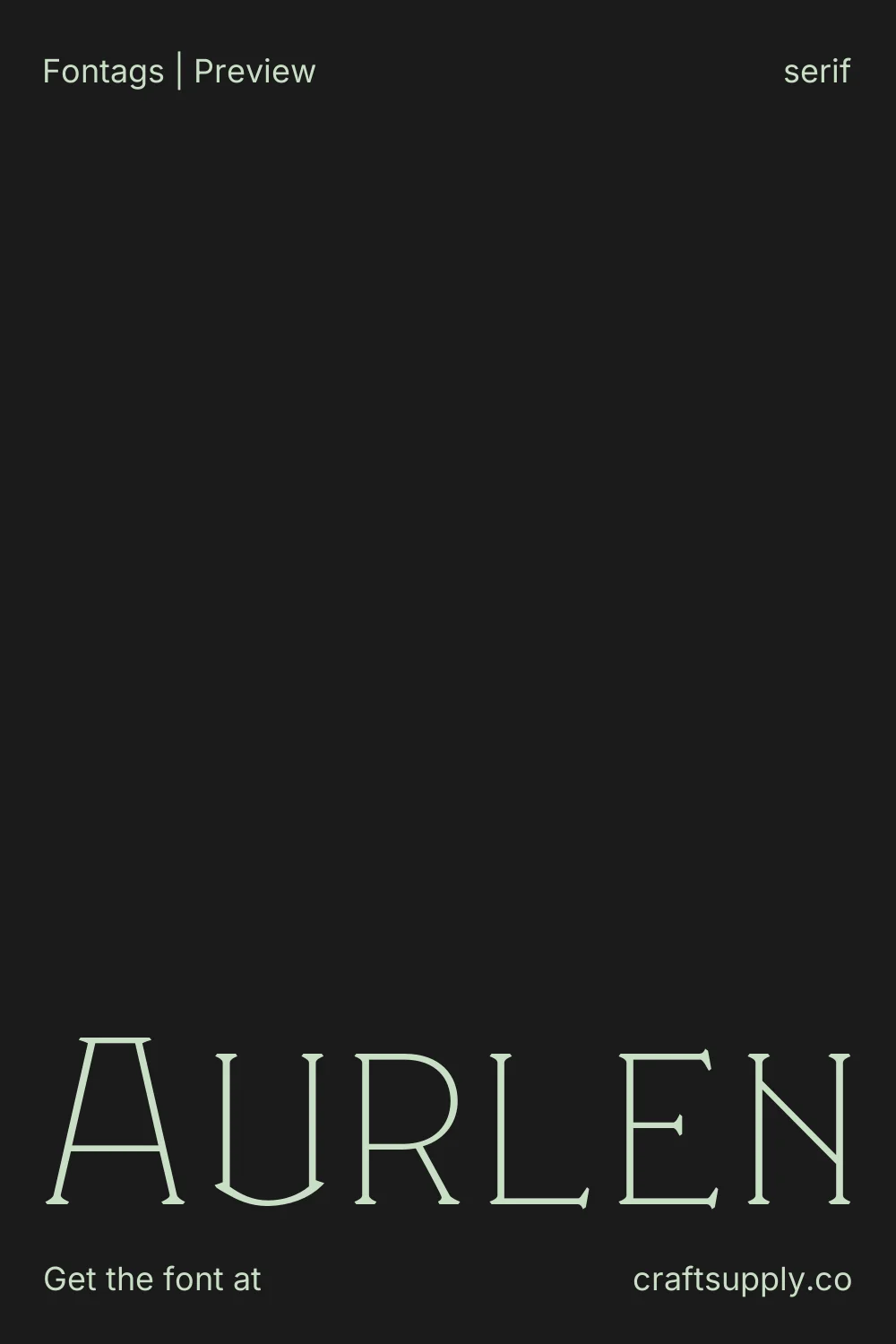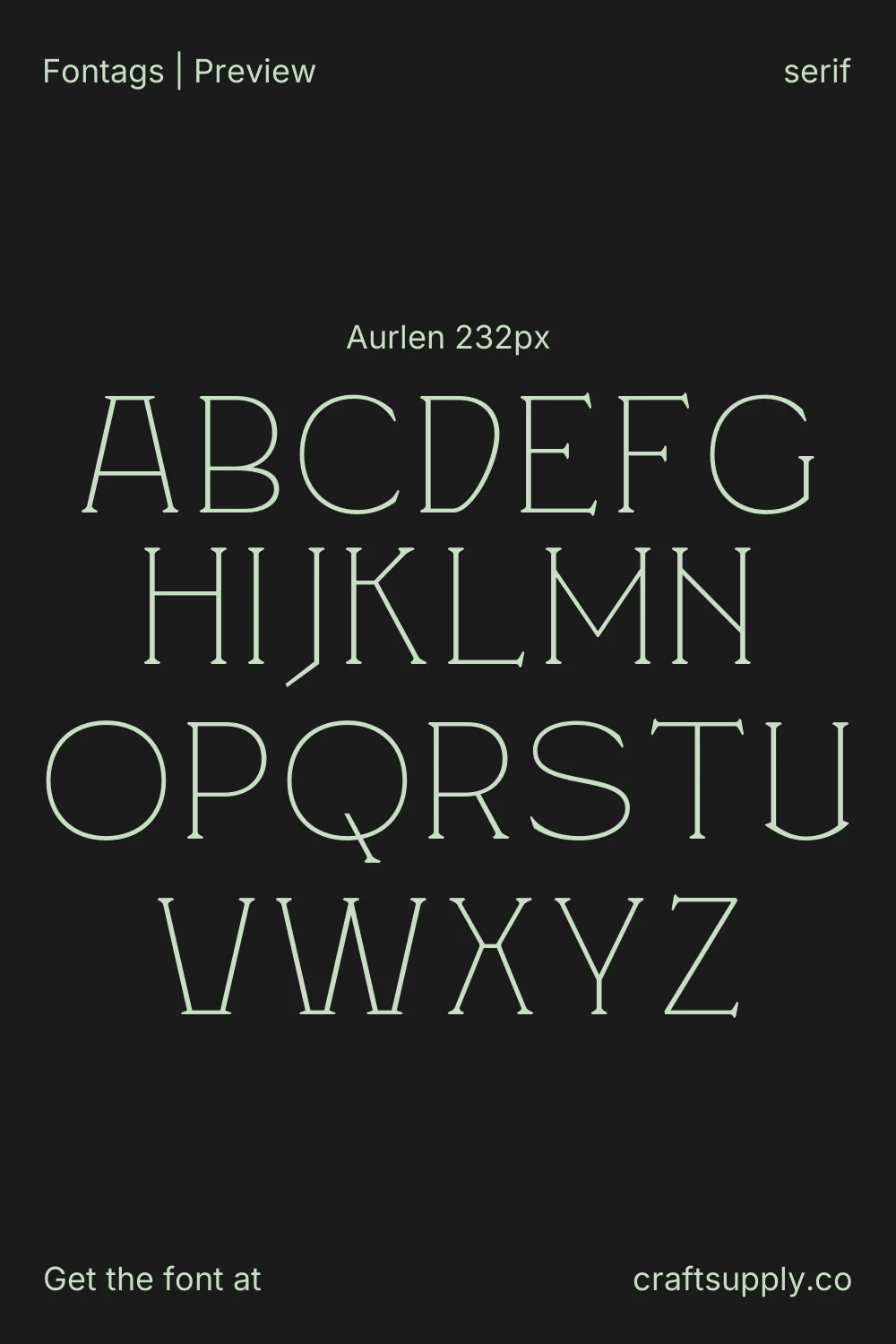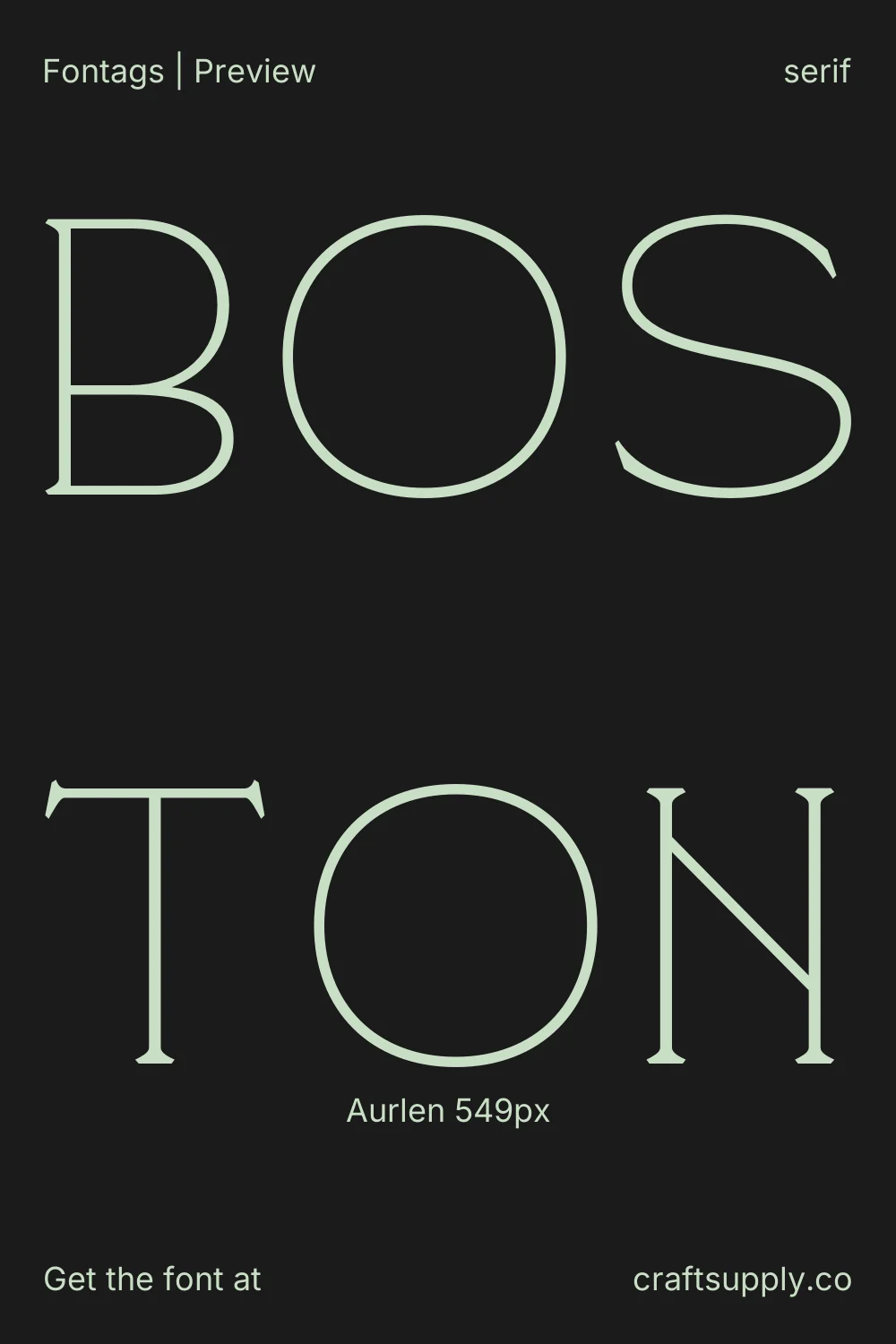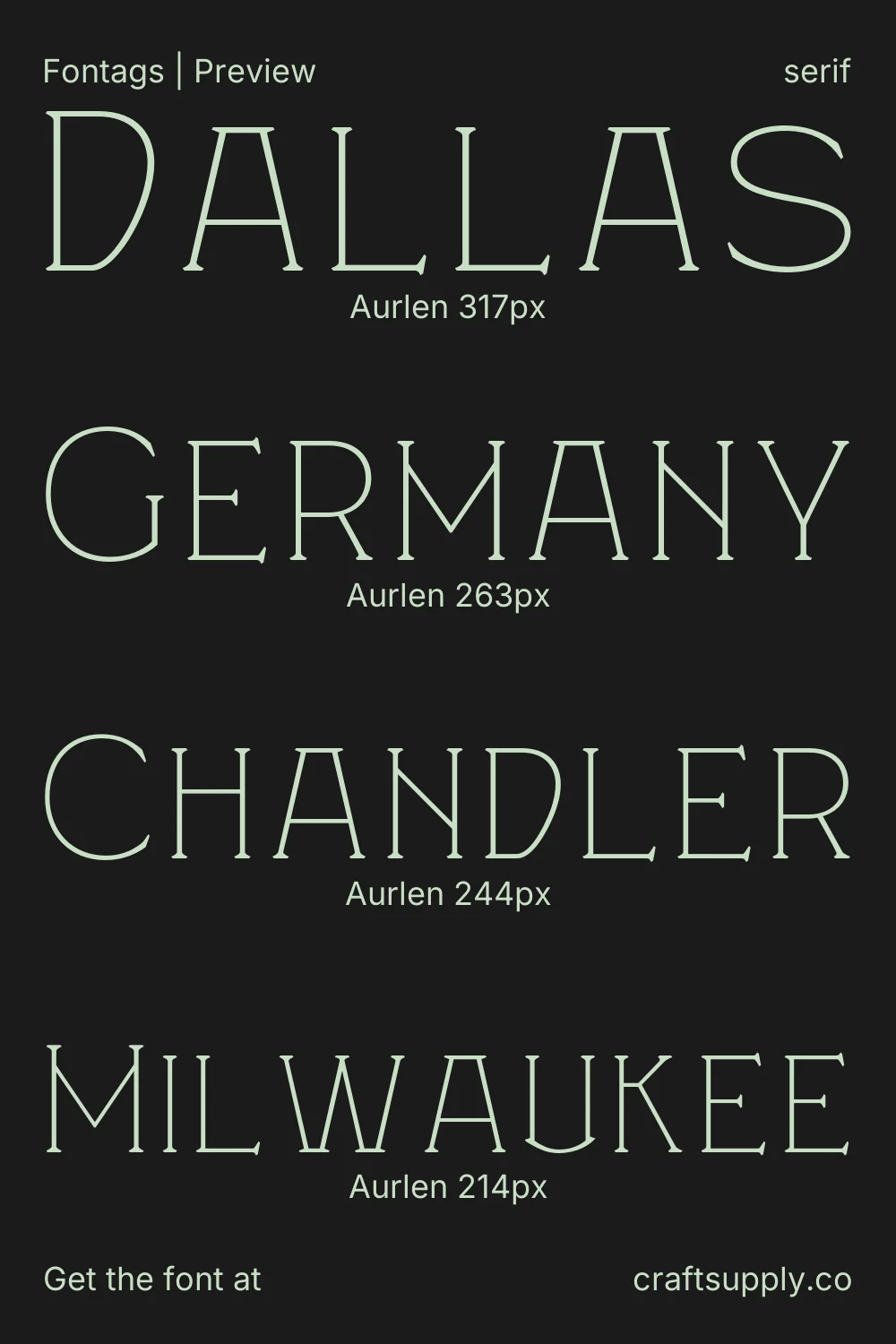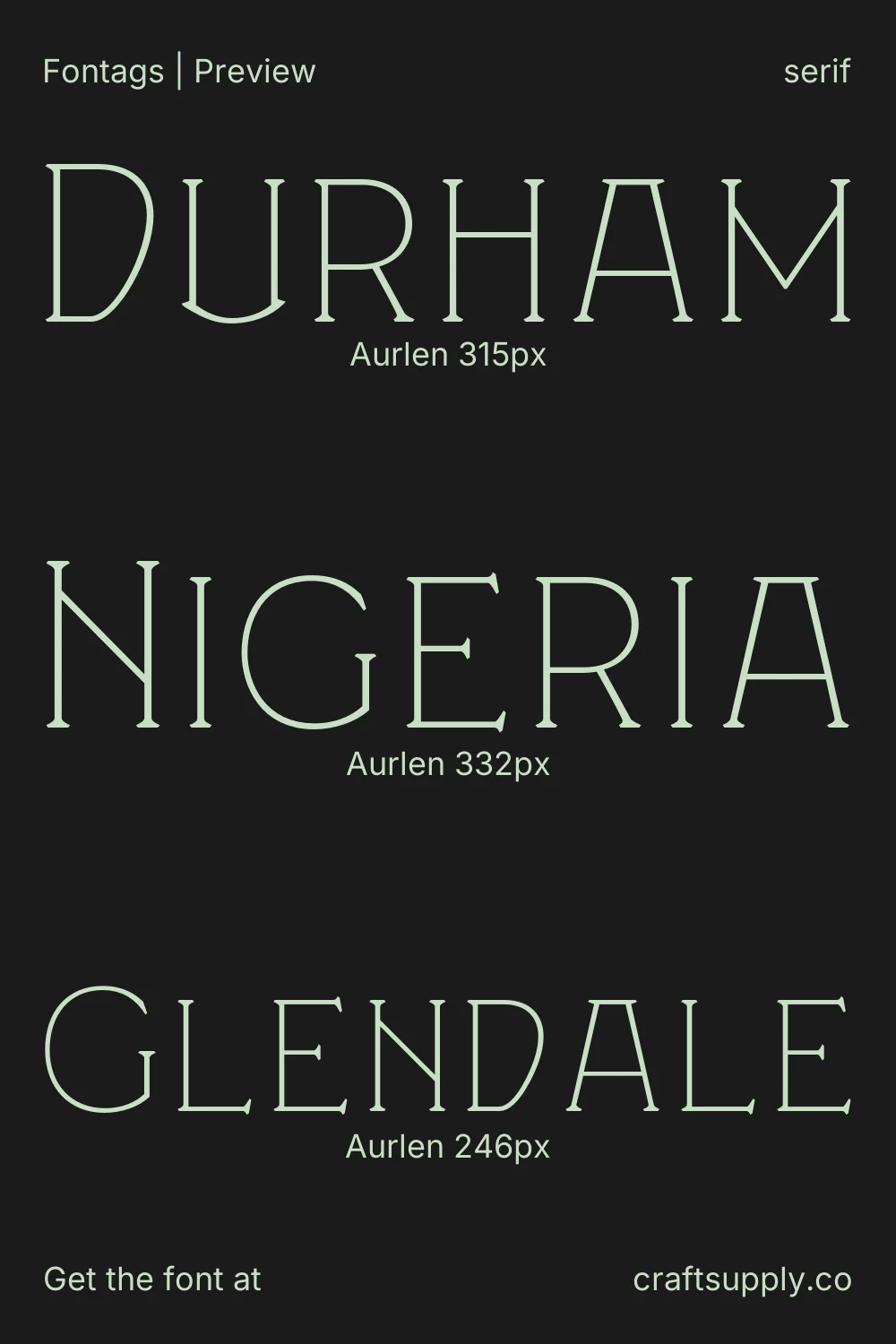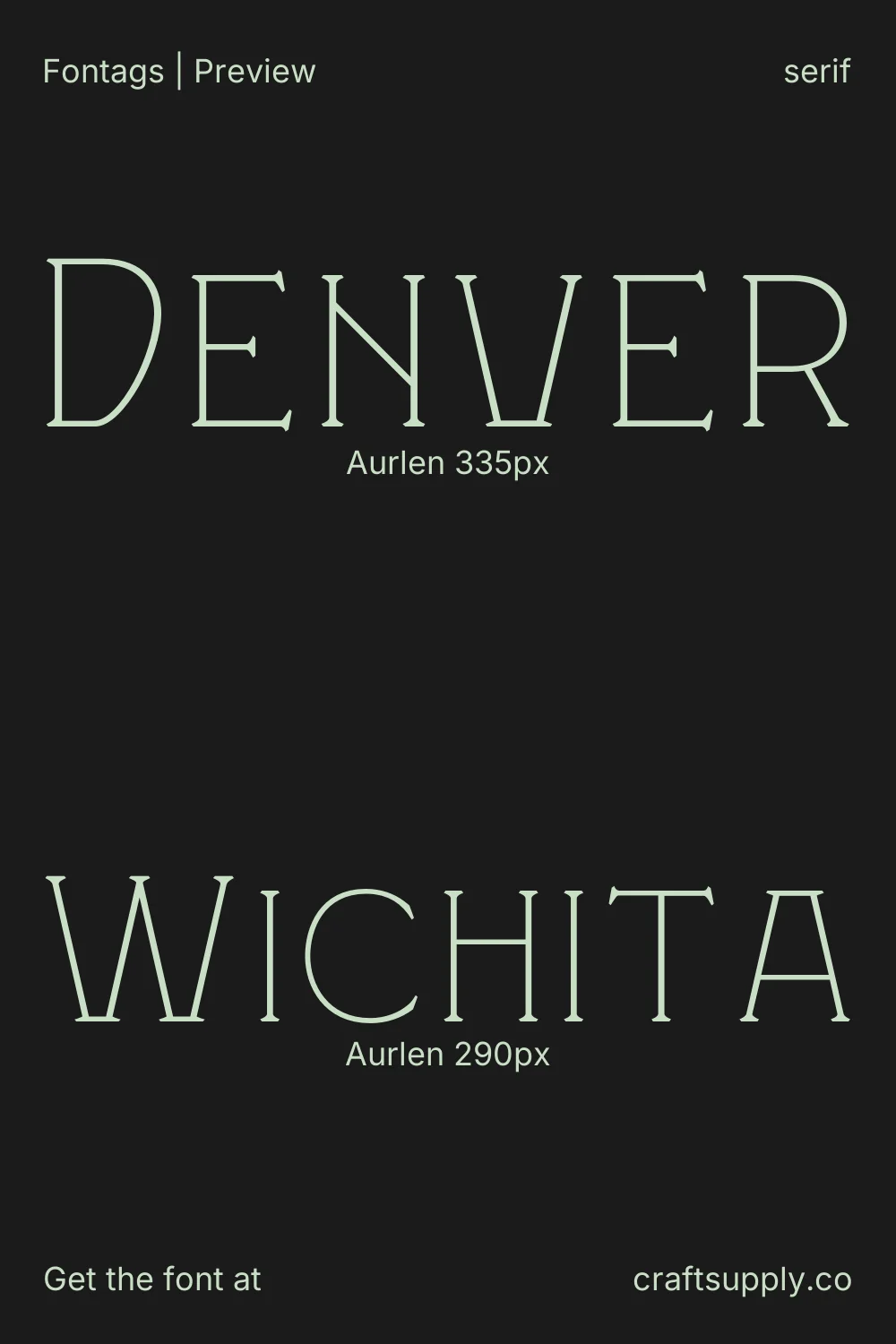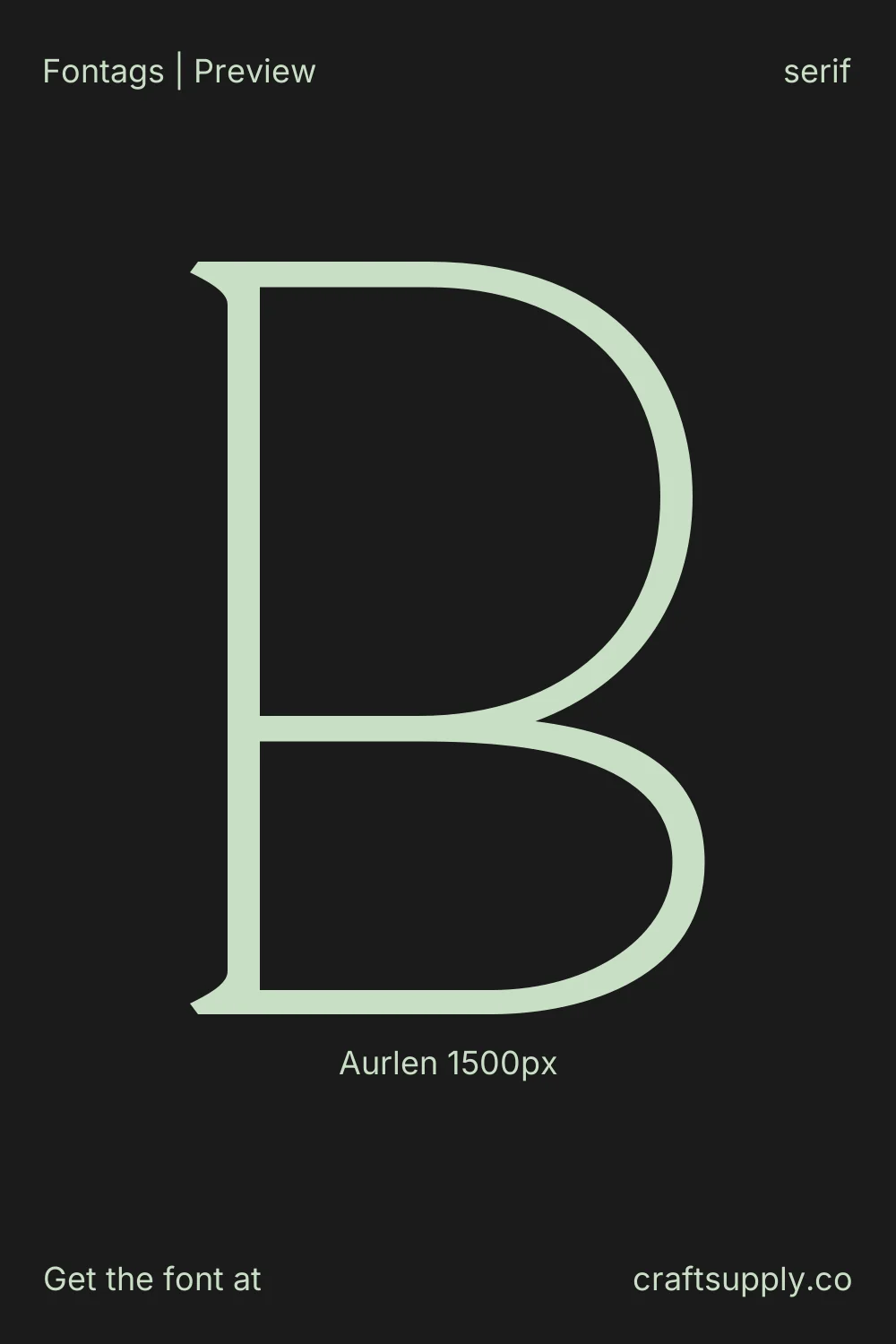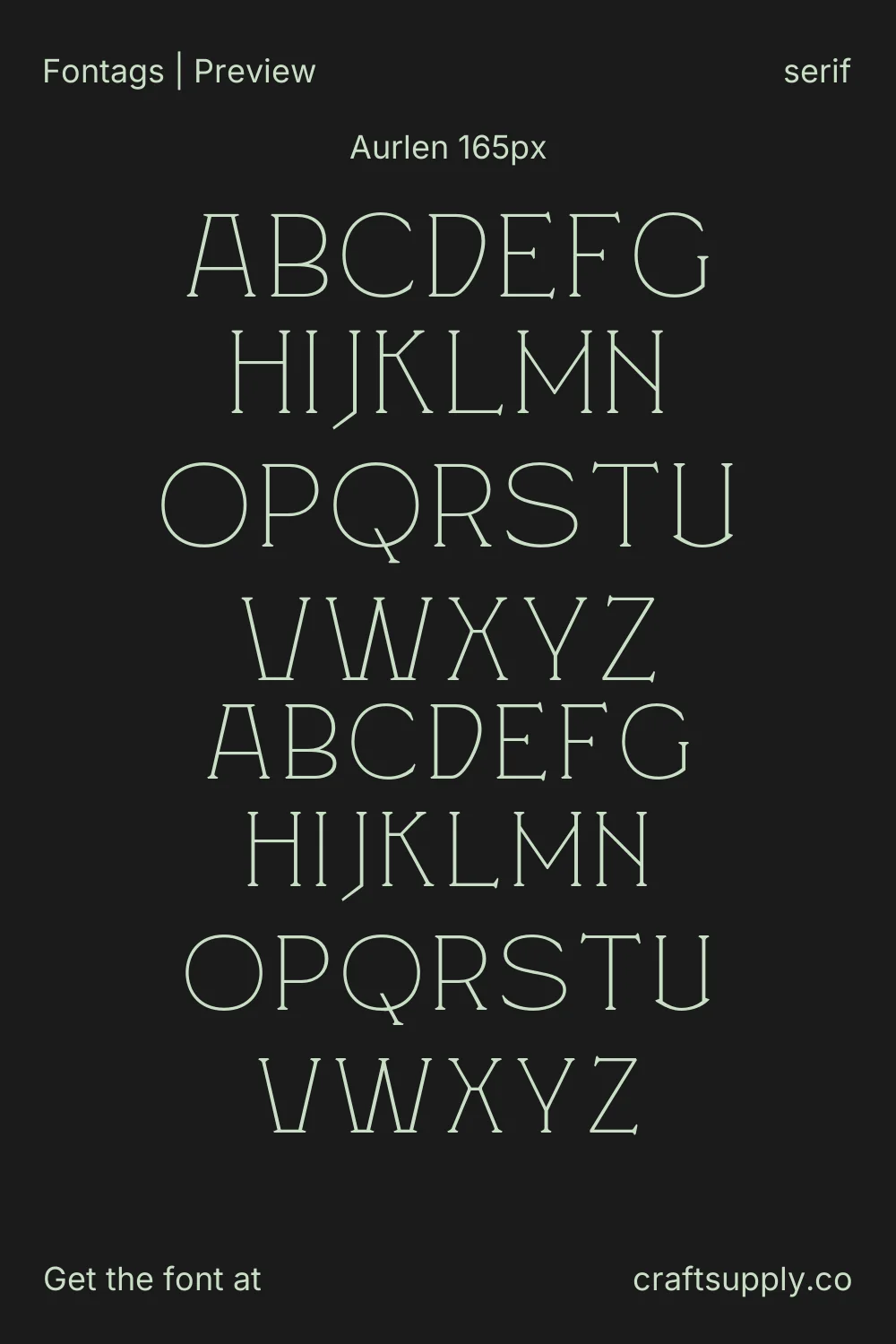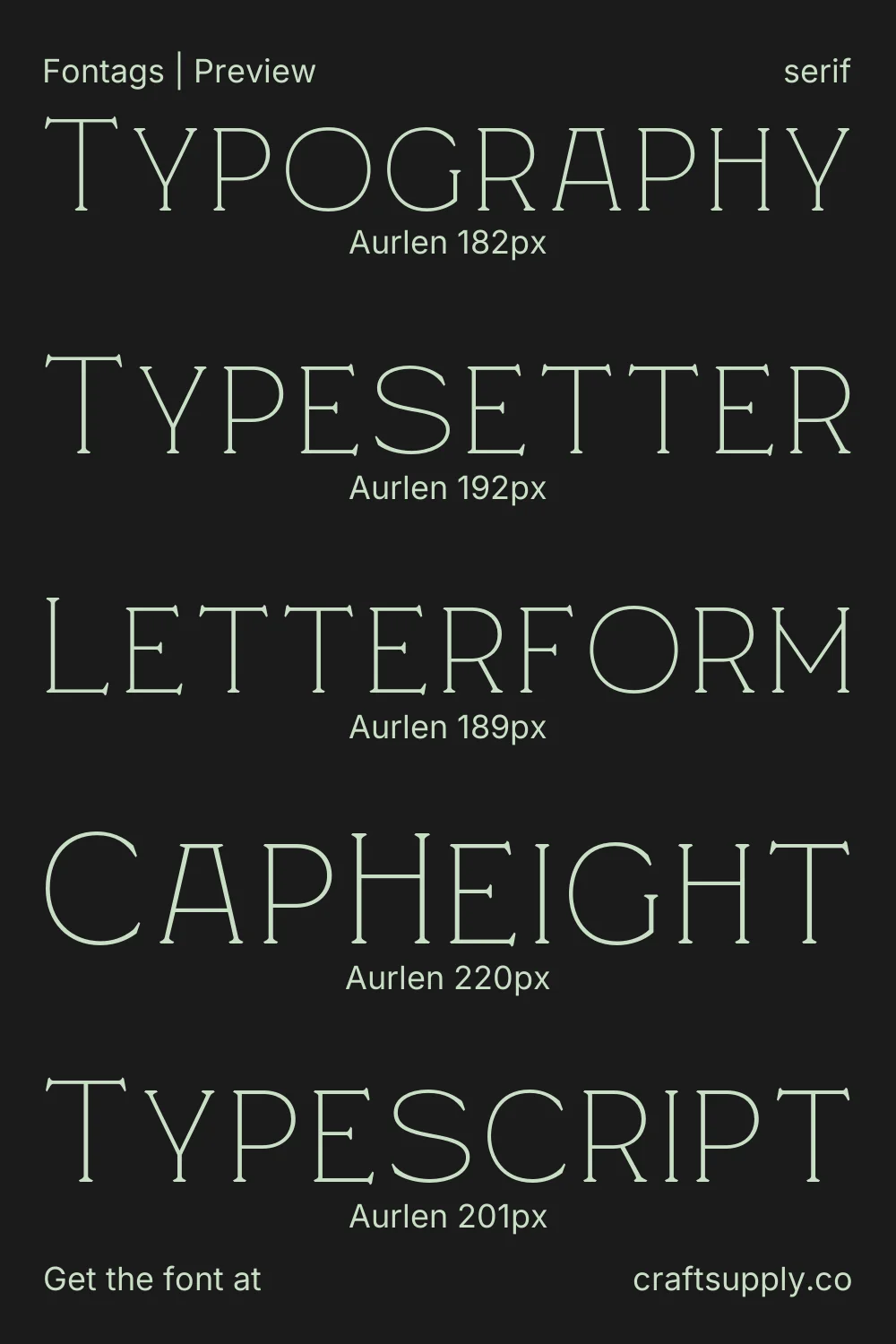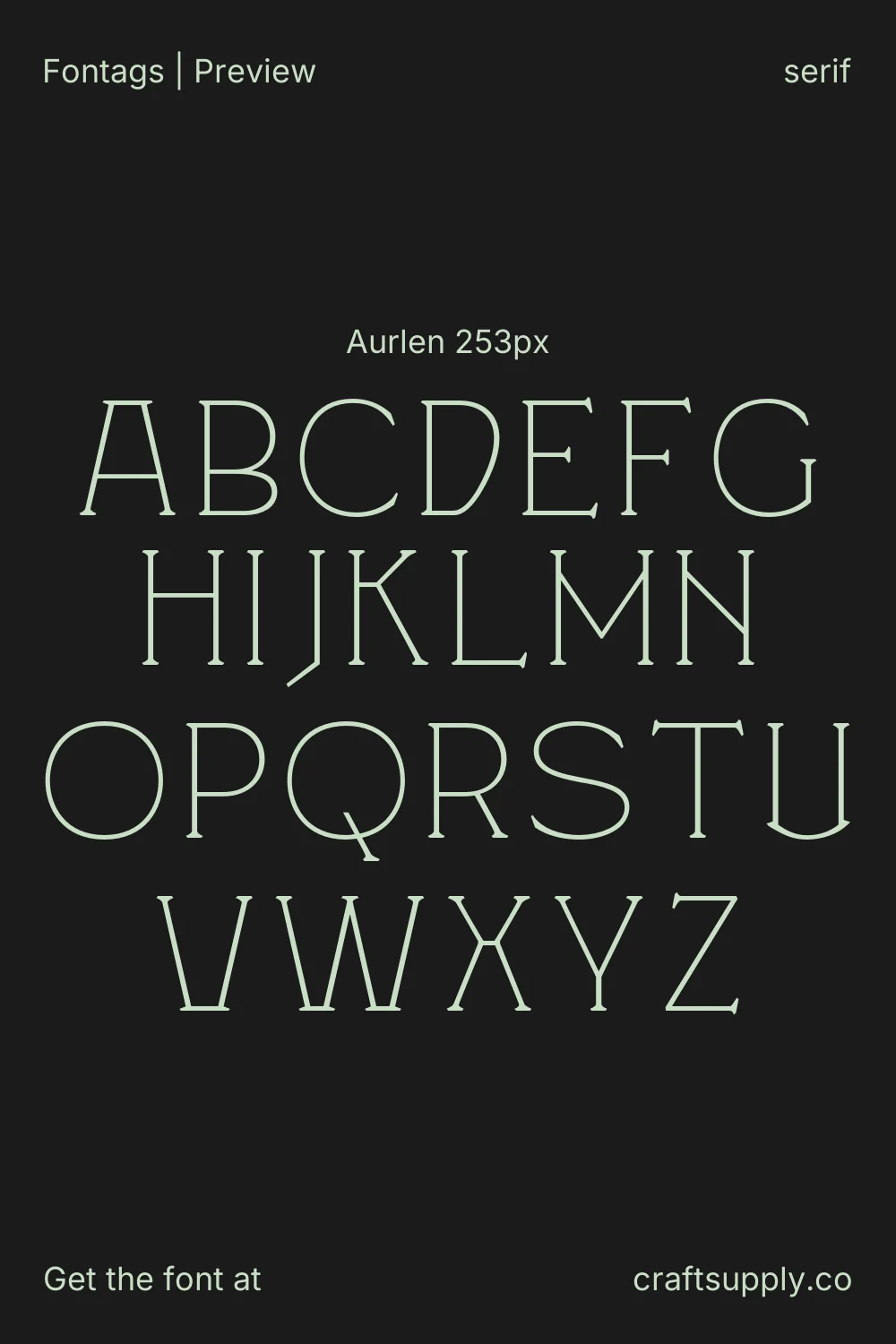
Aurlen
Aurlen is a delicate serif font characterized by thin, elegant serifs and a minimalistic design. Its refined simplicity lends itself perfectly to luxury branding, invitations, and editorial work. The font comes in Regular and Italic styles and supports multilingual characters.